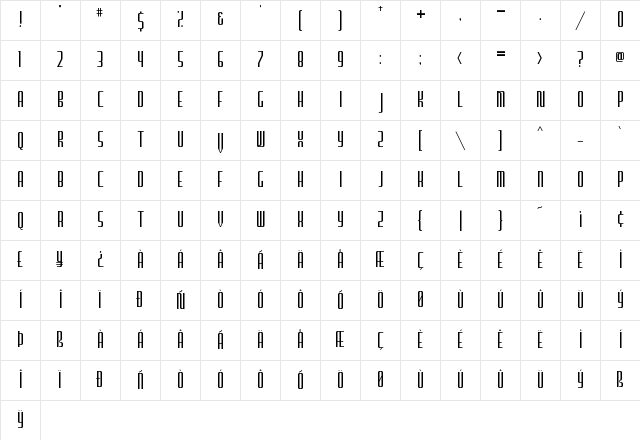
Furgatorio Sans Regular
Designer: Aaron Amar
Complete Furgatorio Sans Regular glyph index. Displaying only characters natively supported by Furgatorio Sans Regular font.
Design Context for Furgatorio Sans
Furgatorio Sans is a composed and adaptable typeface that performs quietly and consistently across a wide range of design contexts.